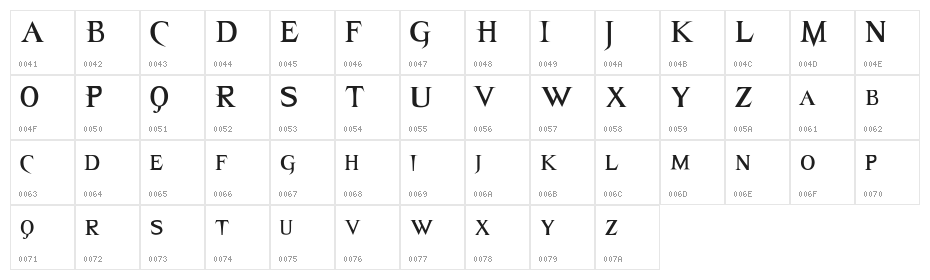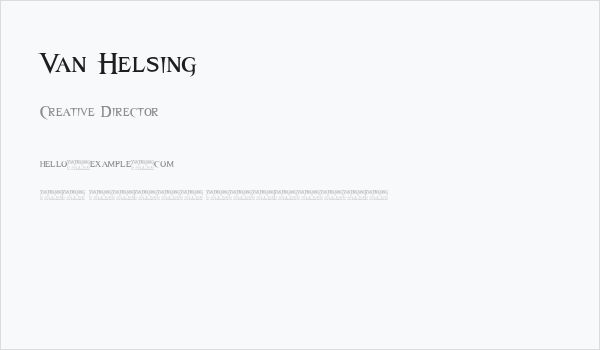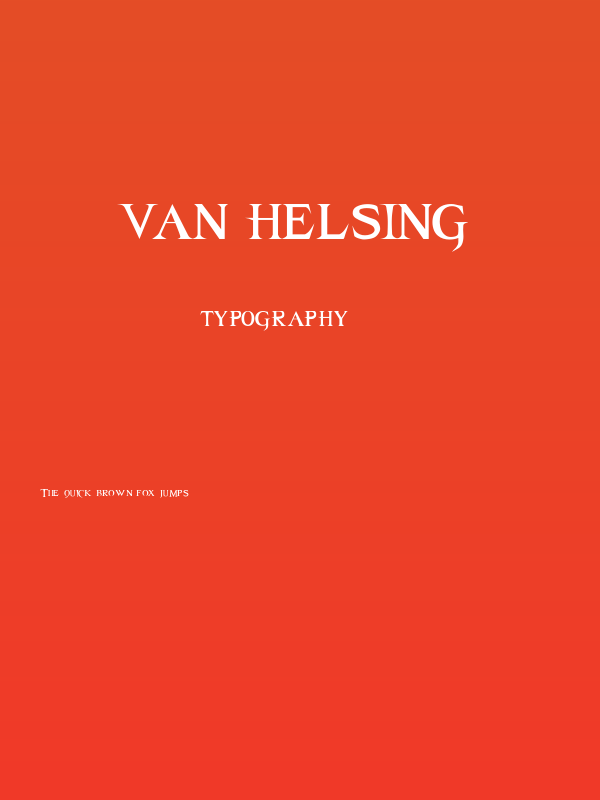
Van Helsing Font
Van Helsing Description
This font features a dramatic and gothic style, characterized by sharp, pointed serifs and a bold presence. The uppercase letters exhibit a medieval flair, with unique curves and angles that evoke a sense of mystery and intrigue. The strokes are thick and consistent, providing a strong visual impact. The overall design is reminiscent of classic horror or fantasy themes, making it ideal for projects that require a touch of the supernatural or historical elegance. The font's distinctiveness lies in its ability to convey both strength and sophistication, making it suitable for a variety of creative applications.
Overall StyleGothic, Medieval, Dramatic
Proposed ProjectsIdeal for movie posters, book covers, video game titles, and themed event invitations.